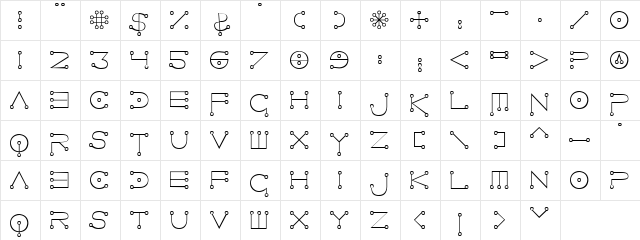
Cuniform Normal
Design Context for Cuniform Typeface
Cuniform is a composed and adaptable typeface that performs quietly and consistently across a wide range of design contexts.